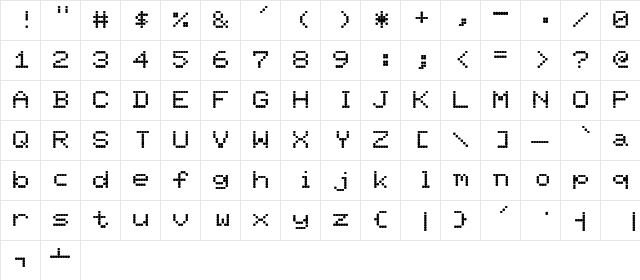
Fillit Regular Font Preview
Fillit Regular
Fillit Regular Font Details
Design Context for Fillit Typeface
Fillit takes a measured approach to typography — its balanced proportions and neutral character make it a reliable workhorse for both digital and print work.